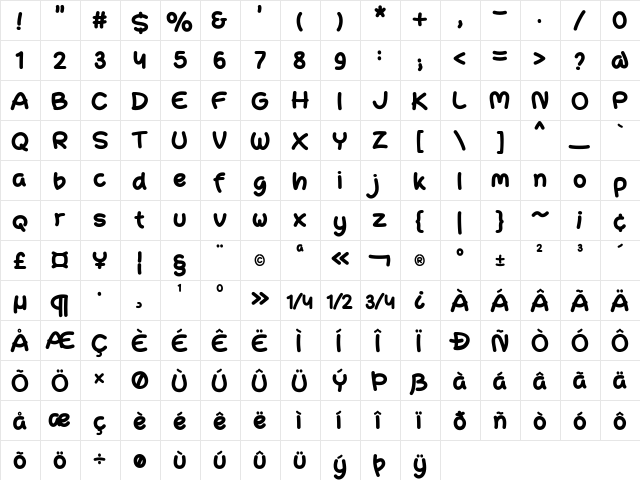
Santalum Regular
| Foundry | Lambert Wahang |
| Designer | Lambert Wahang |
Design Context for Santalum Typeface
Santalum is a composed and adaptable typeface that performs quietly and consistently across a wide range of design contexts.